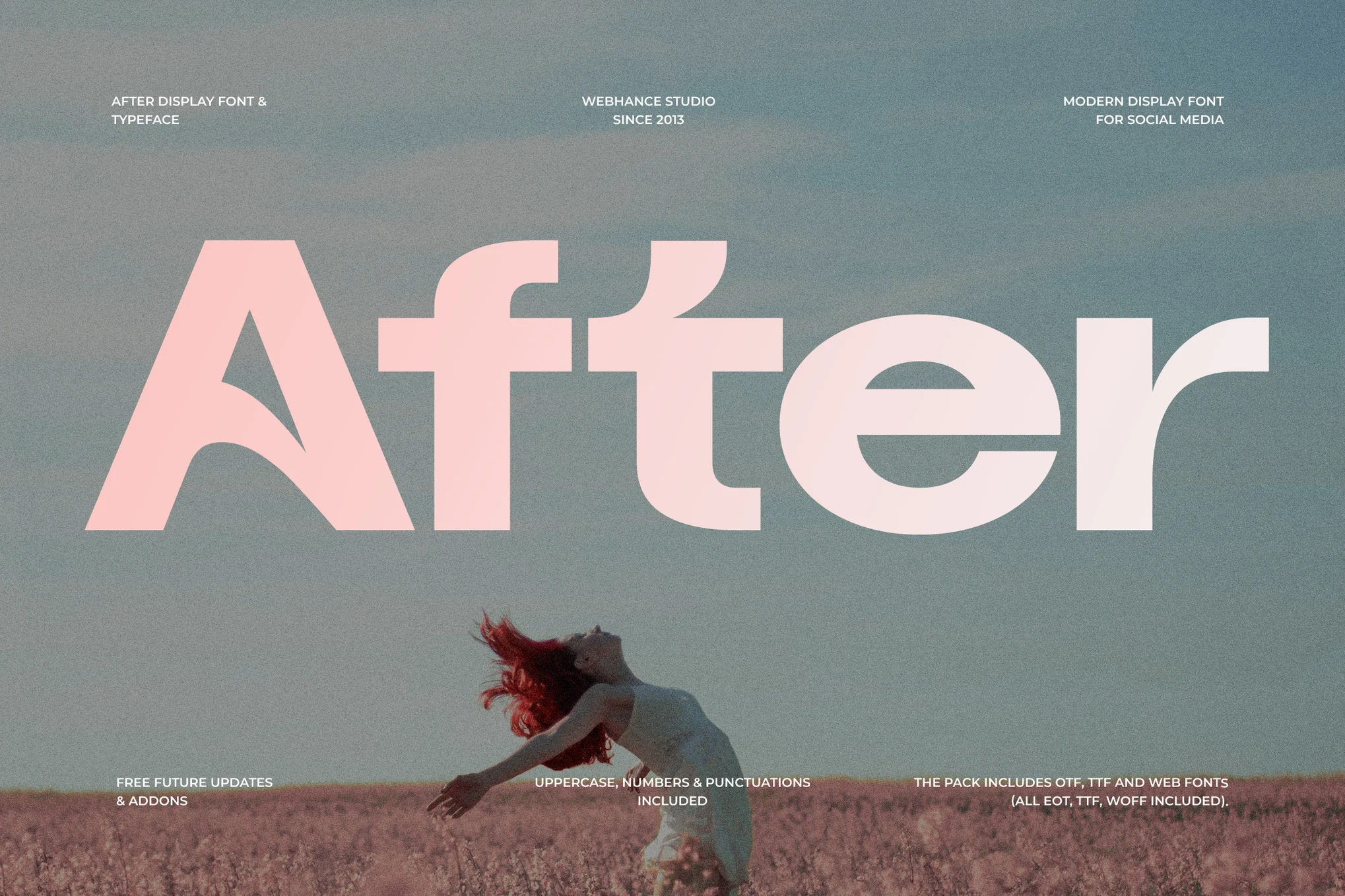
Vault Zxnova – After Modern & Elegant Sans-Serif Font
after modern display font
Vault Zxnova introduces After – a sleek, versatile sans-serif display font designed with sophistication and clarity in mind. This typeface brings a clean, modern aesthetic to any creative project, including branding, web design, presentations, and editorial layouts.
With its balanced proportions and refined letterforms, After ensures outstanding readability and timeless style. Perfect for logos, headlines, business collateral, or digital content, this font adds a polished and professional feel to your work.
Key Features
| Feature | Description |
|---|---|
| Elegant & Minimalist Design | Enhances both print and digital creative projects with modern simplicity. |
| Uppercase & Lowercase Letters | Well-crafted, contemporary letterforms for versatile use. |
| Numbers & Punctuation | Complete character set enables diverse design possibilities. |
| Outstanding Readability | Balanced proportions and clarity for headlines, branding, and editorial projects. |
| Expert Craftsmanship | Meticulously designed by Webhance Studio for professional quality. |
Raise your creative standards with After by Vault Zxnova – a timeless, adaptable font for any vision.